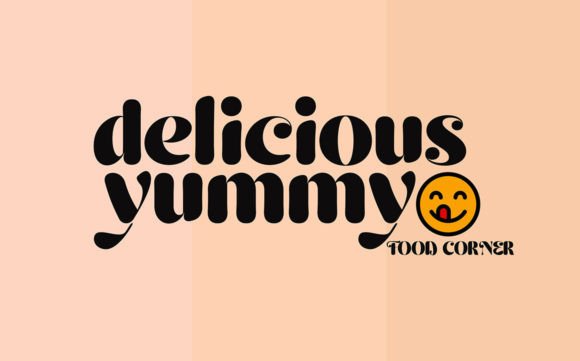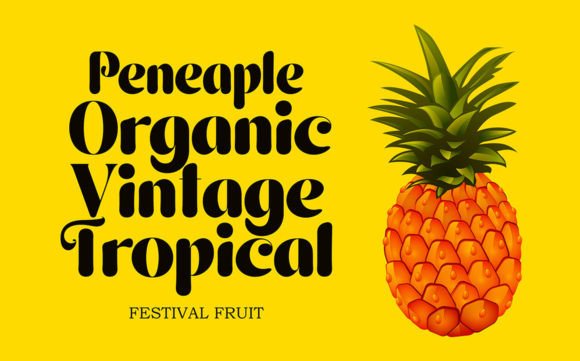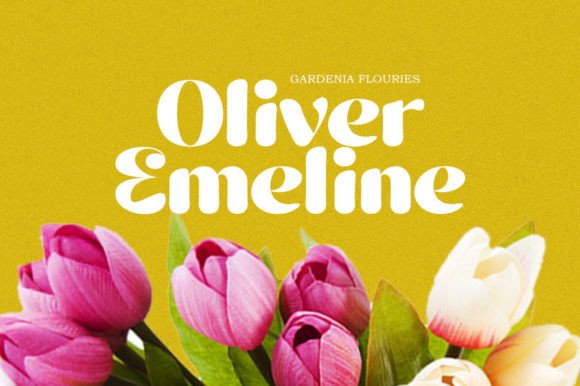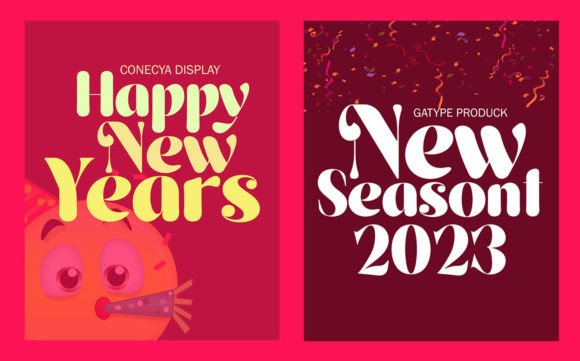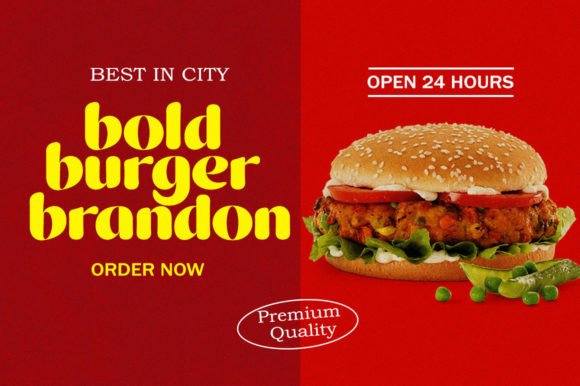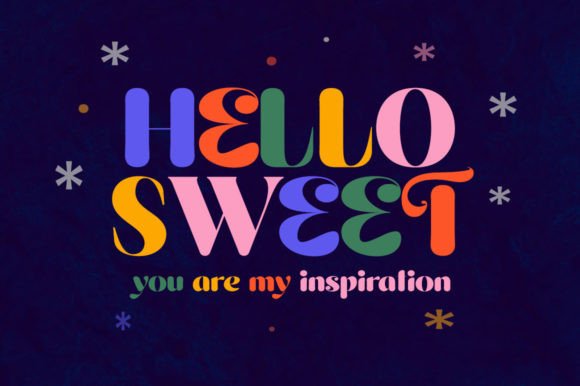
Introduction to Konecya Font Font
Fonts play a crucial role in design, and the Konecya Font font is a typeface that brings both character and versatility to any project. Whether you’re working on a branding project, a website, or a print design, the Konecya Font font offers a unique style that can elevate your work.
Konecya is a fresh and casual display typeface with subtle details.
This versatile font has enough character for logos and branding, as well as headlines, apparel, posters, and more .
Key Features of Konecya Font Font
Why Choose Konecya Font Font?
The Konecya Font font is more than just a typeface – it’s a design tool that helps you communicate your message with style and clarity. Its unique character set and versatile design make it suitable for a wide range of applications, from elegant invitations to bold headlines.
With its carefully crafted letterforms and balanced proportions, the Konecya Font font ensures readability and visual appeal across all mediums.
What makes Konecya Font font special?
The Konecya Font font stands out with its unique design, exceptional readability, and versatility across various design applications.